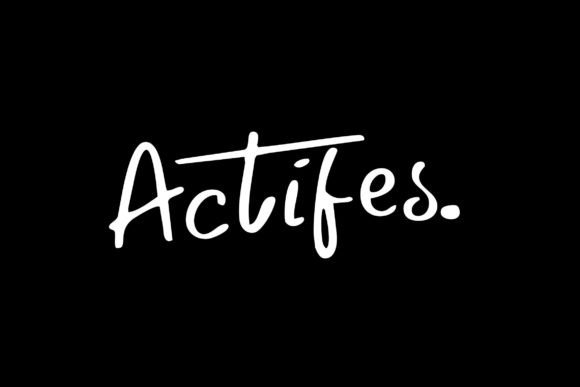
Journey into the realm of elegance with Actifes, a script font that dances across the page like a ballerina. Its handwriting style brings a touch of intimacy and charm to every word, making it the perfect choice for those seeking a font that speaks to the heart.
With Actifes, your designs will be transformed into works of art. Imagine wedding invitations that evoke a sense of timeless romance, posters that capture attention with their playful yet sophisticated flair, and social media content that sparks conversations and leaves a lasting impression.
Unleash your creativity and let Actifes guide you through a world of possibilities. Craft logos that embody the essence of your brand, leaving an indelible mark on the minds of your customers. Create advertisements that entice and captivate, drawing them into your world of imagination.
Actifes is not just a font; it's an experience. It's the perfect harmony of style and functionality, making it the ideal choice for designers, crafters, and anyone who seeks to add a touch of magic to their creative endeavors.